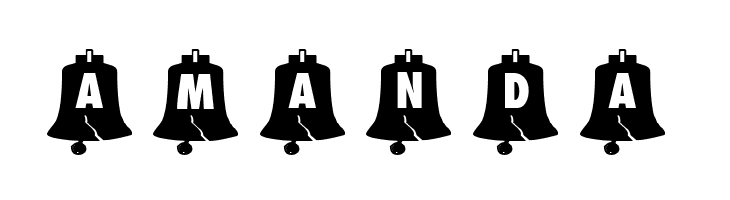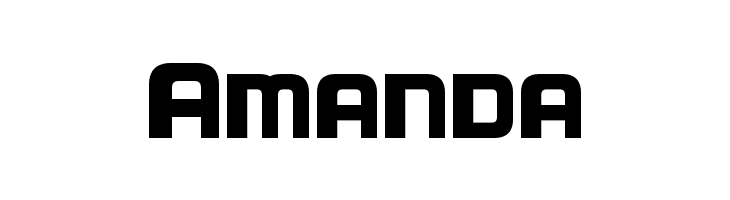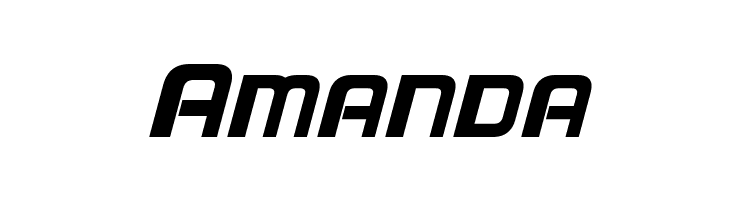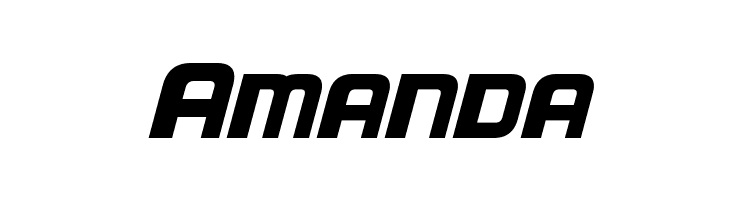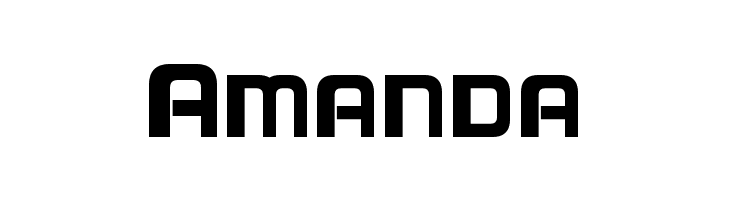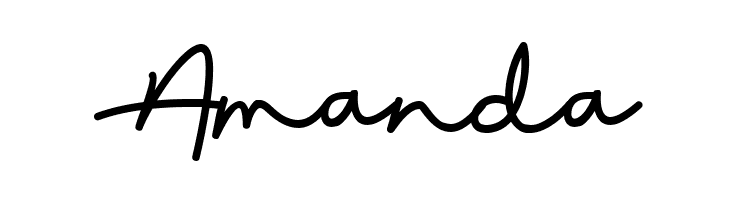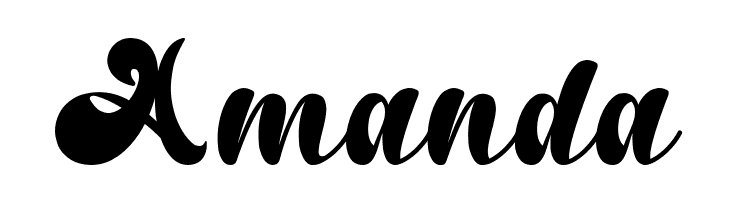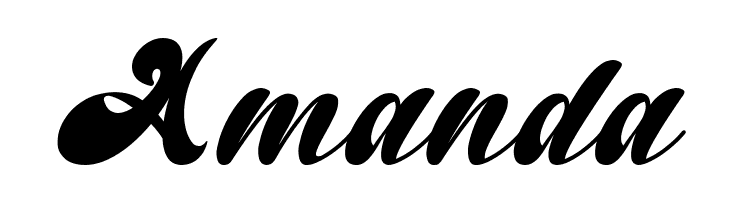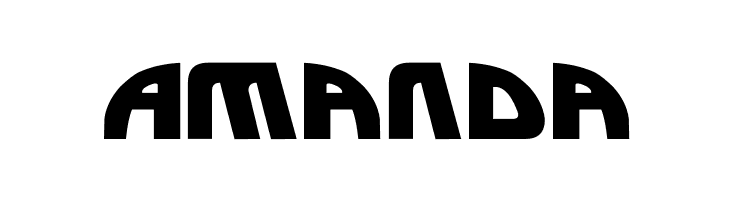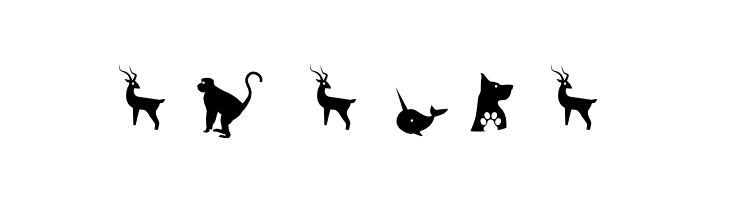
A whimsical, hand-drawn font with thin, elongated strokes and an artistic flair.
A bold, expressive font with a hand-drawn, rebellious style.
A playful, hand-drawn font with a whimsical and artistic style.
An ornate, gothic-style font with intricate flourishes.
A bold, expressive brush-style font with a hand-painted appearance.
An ornate and decorative font with intricate swirls and high contrast strokes.
A playful, modern font with bold, rounded characters and geometric style.
A decorative font with characters encased in bell silhouettes, ideal for thematic designs.
A bold, geometric font with rounded edges and a modern, strong appearance.
A modern, italicized font with bold strokes and a dynamic appearance.
A bold, italicized font with a dynamic and modern style.
A bold, modern geometric font with rounded edges and consistent thickness.
A modern cursive font with flowing, connected letters and a handwritten feel.
A bold, playful font with high contrast and whimsical flourishes.
A bold, italic script font with high contrast and ornate flourishes.
A decorative font with unique animal silhouettes for each character.
A bold, adventurous font with jagged, dynamic letterforms ideal for dramatic themes.
A whimsical and elegant script font with flowing, interconnected letters.
A bold, geometric font with clean lines and a modern appearance.
A dynamic and expressive script font with fluid, sweeping strokes.
A playful, spooky font with curled accents and dripping effects, perfect for Halloween themes.
A bold, playful script font with a lively, handwritten style.
A bold, playful handwritten font with rounded strokes and a casual style.
A bold, graffiti-inspired font with sharp angles and dynamic curves.
A bold, textured font with a distressed, grunge aesthetic.
A bold, italicized font with sharp, angular strokes and high contrast, exuding energy and modernity.
A bold, angular font with a dynamic and geometric style.